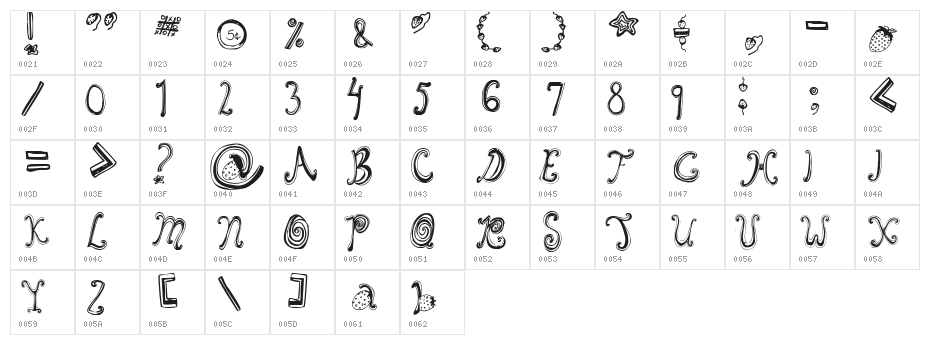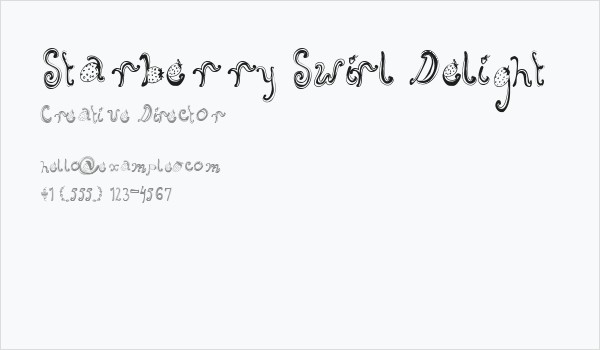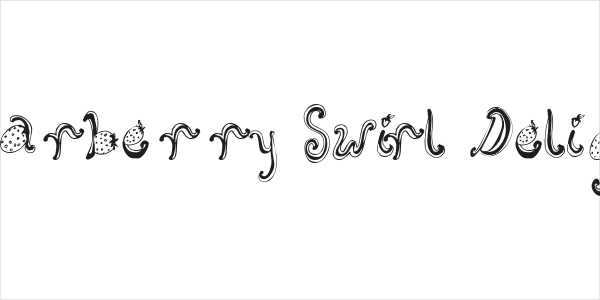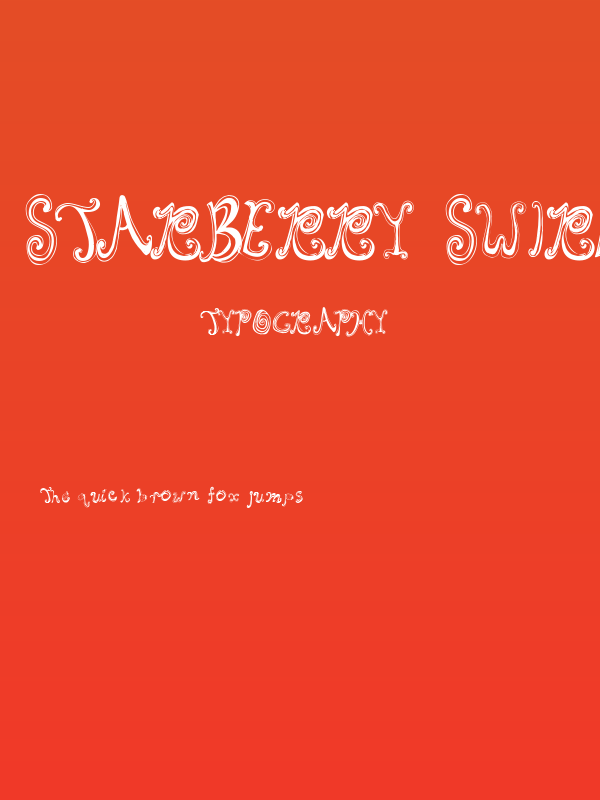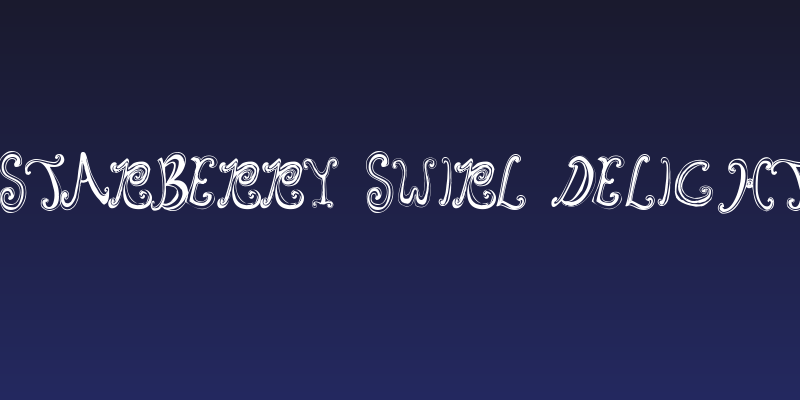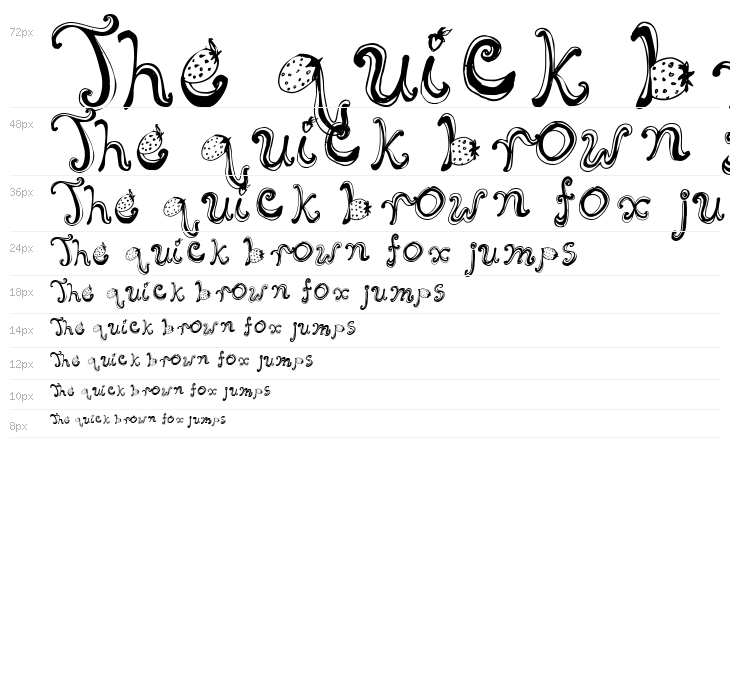
Starberry Swirl Delight Font
Starberry Swirl Delight Description
This whimsical and playful font features a delightful swirl and curl design, reminiscent of a fun and carefree style. Each letter is adorned with unique embellishments, such as dots and fruit-like shapes, adding a touch of creativity and charm. The font maintains a consistent flow with its curvy and rounded edges, making it visually appealing and engaging. The numbers and special characters follow the same playful theme, ensuring a cohesive look throughout. This font is perfect for projects that require a touch of whimsy and creativity, such as children's books, playful branding, or artistic posters.
| Use Case | Headlines, Logos, Artistic Projects |
| Proposed Projects | Ideal for children's books, playful branding, artistic posters, and creative invitations. |